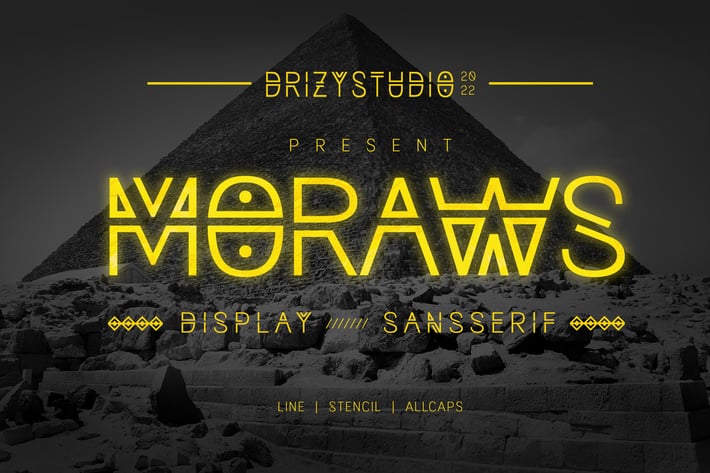
Moraws - Stencil Font
Introducing Moraws! a Stencil San Serif Ethnic Font from Drizy! It's suitable for ethnic theme of your project.
Moraws Features:
Uppercase & Lower Case
Numeral
Multilinguals
Alternates
Ligatures & Punctuations